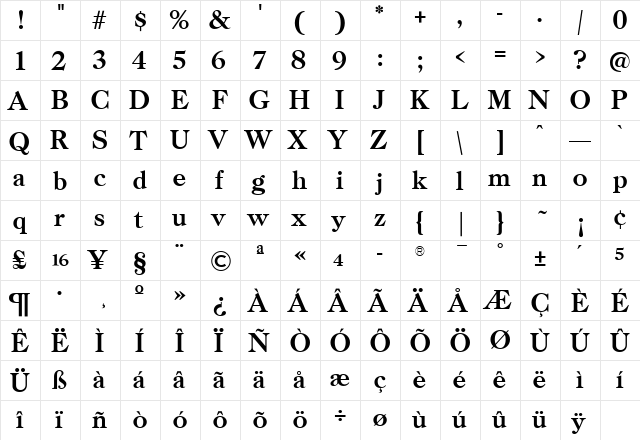
TFCaslon Bold
Design Context for TFCaslon Typeface
TFCaslon takes a measured approach to typography — its balanced proportions and neutral character make it a reliable workhorse for both digital and print work. The heavy weight commands attention and anchors typographic hierarchies.